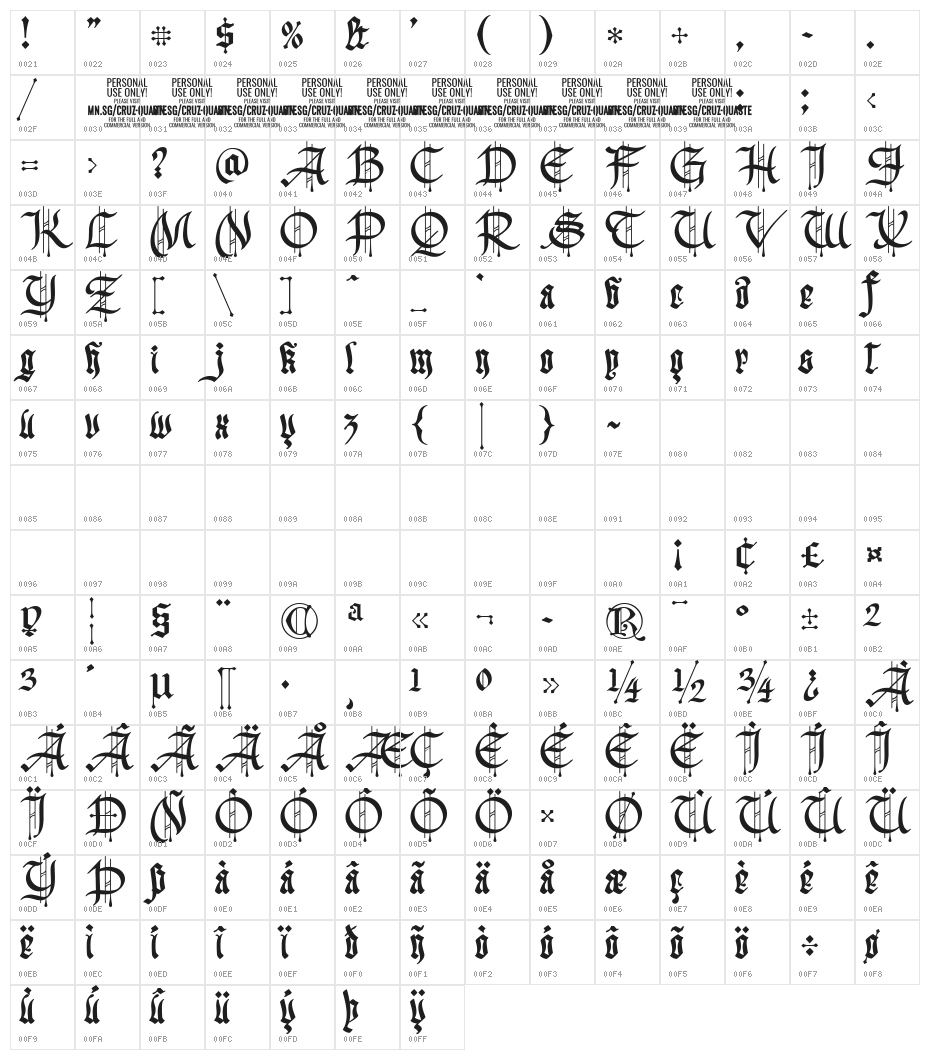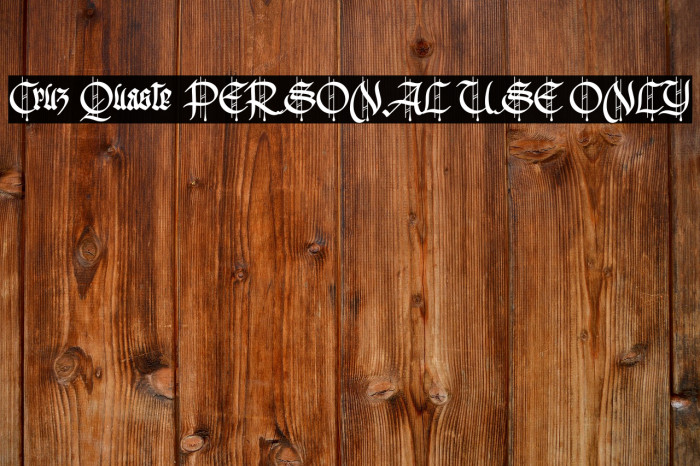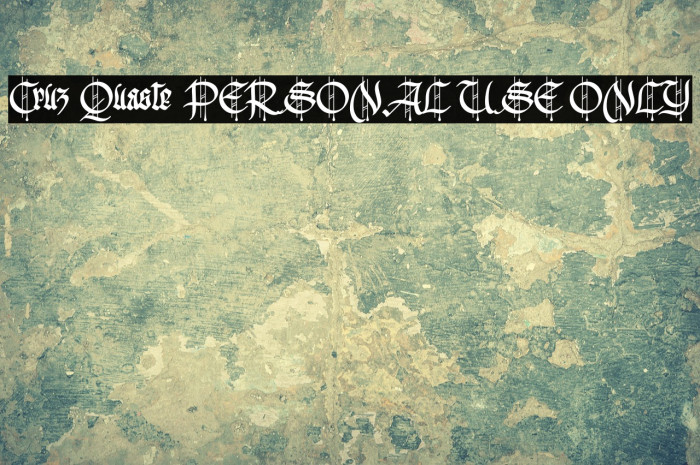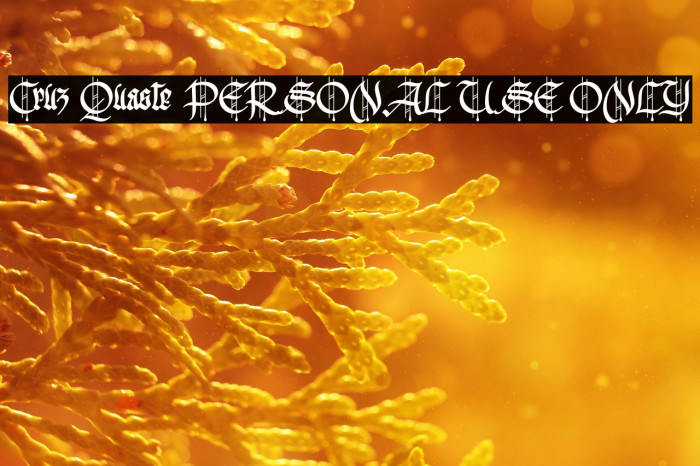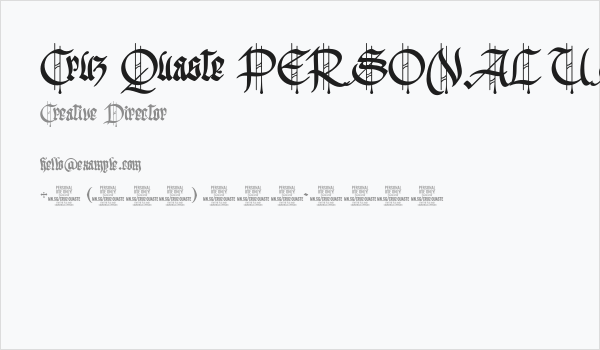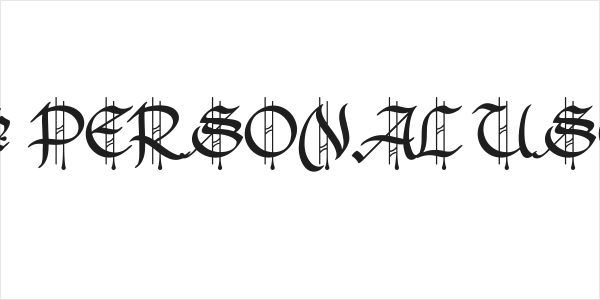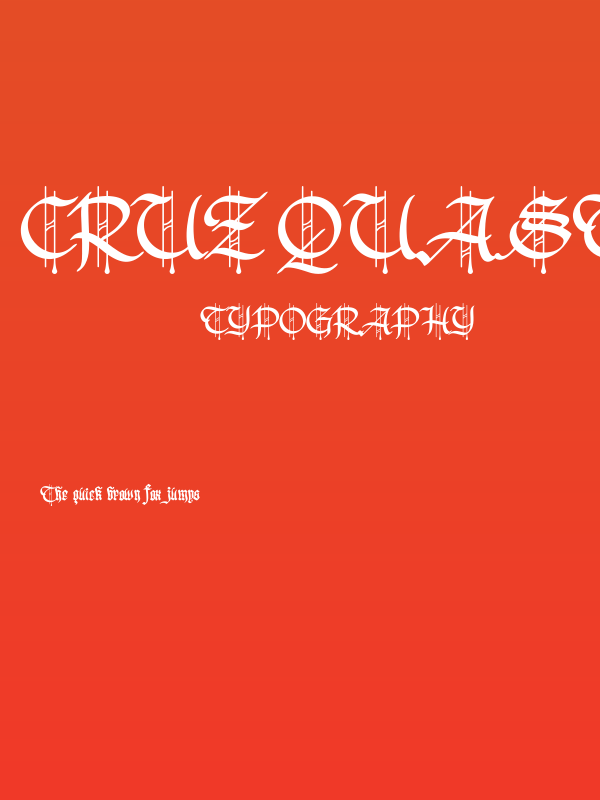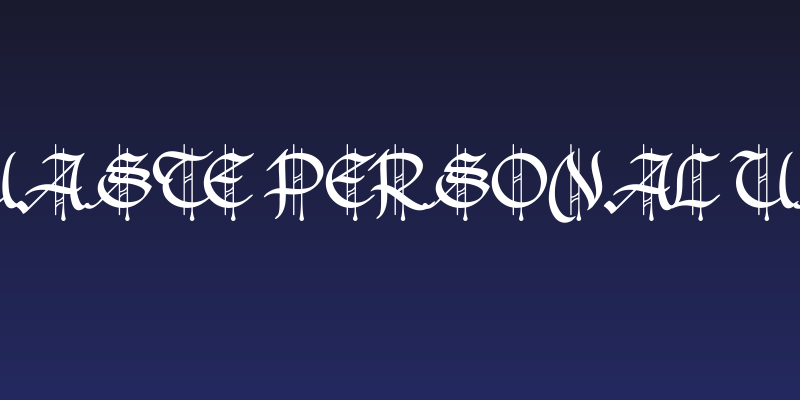
Cruz Quaste PERSONAL USE ONLY Font
Cruz Quaste PERSONAL USE ONLY Description
This font features a dramatic and intricate design, reminiscent of traditional Blackletter styles. The uppercase letters are characterized by sharp, angular lines and elaborate flourishes, giving them a gothic and medieval appearance. The lowercase letters maintain this ornate style, with bold strokes and decorative elements that enhance their visual impact. The numbers and special characters follow suit, with a consistent emphasis on boldness and complexity. The overall aesthetic is both historical and artistic, making it suitable for projects that require a touch of elegance and tradition.
Overall StyleVintage
Use CaseLogos, Headlines, Decorative purposes
Proposed ProjectsIdeal for use in branding, posters, book covers, and any design that seeks to evoke a sense of history or tradition.